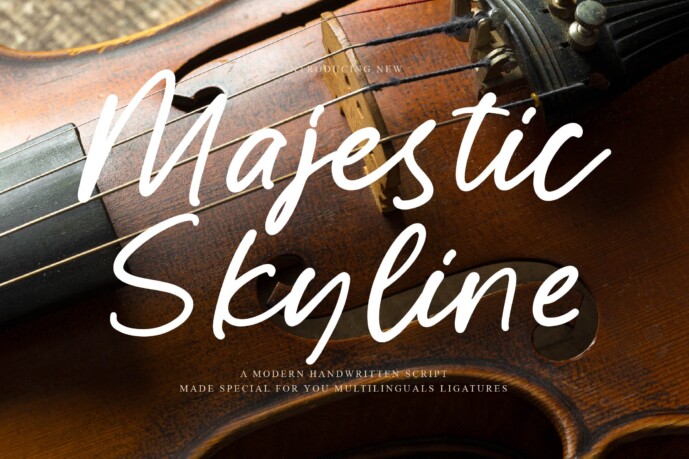
Majestic Skyline is a bold and expressive handwritten script font, perfect for those who want to make a strong visual impact. Inspired by brush lettering and musical rhythm, it’s ideal for posters, music covers, creative branding, and expressive quotes that need an artistic flair.